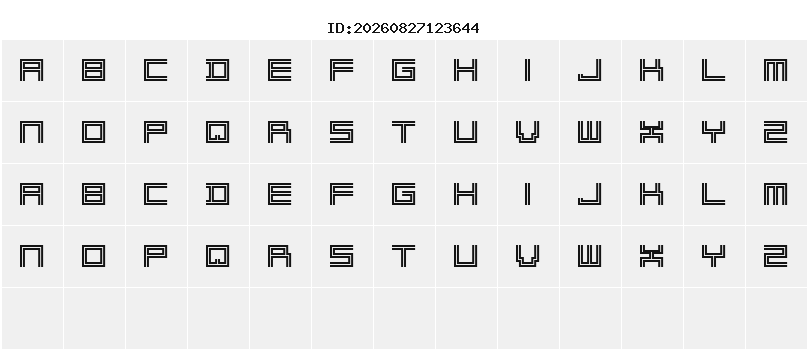
• Font Name: 2 Lines
• Designer: Carlos Matteoli
About 2 Lines.ttf
2 Lines.ttf is a modern, elegant sans-serif font designed for ultimate readability and visual harmony. Perfect for branding, headlines, web design, and print materials.